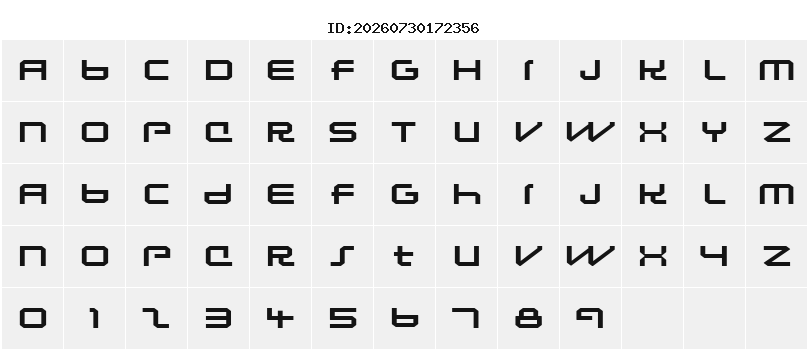
• Font Name: Lunasol Sequence
• Designer: Ray Larabie
About Lunasol Sequence.ttf
Lunasol Sequence.ttf is a modern, elegant sans-serif font designed for ultimate readability and visual harmony. Perfect for branding, headlines, web design, and print materials.